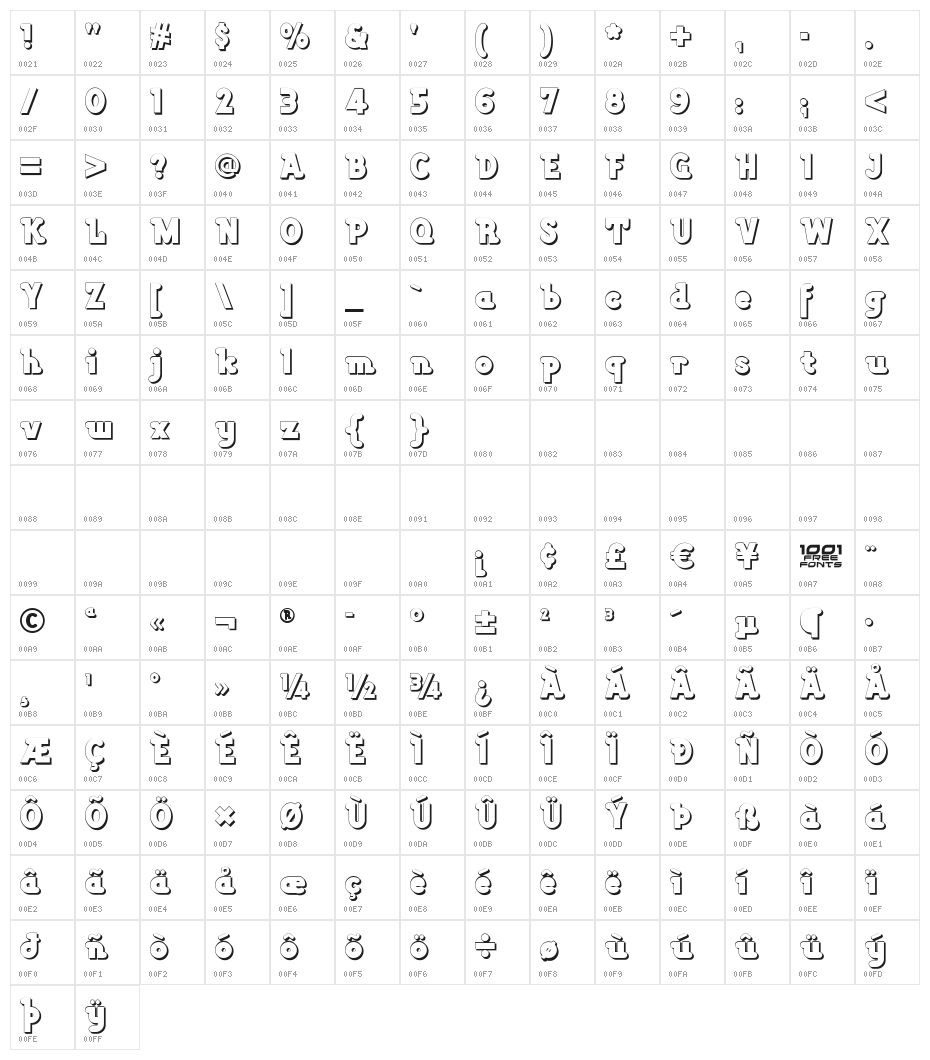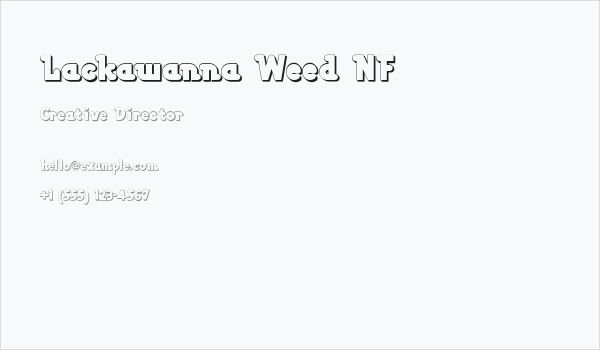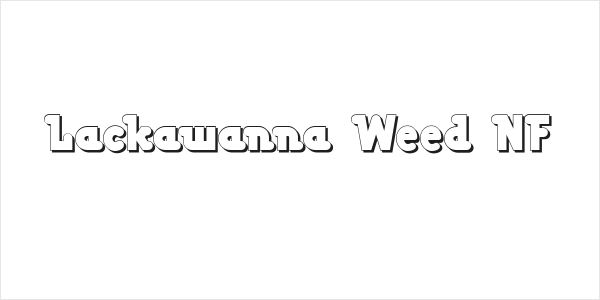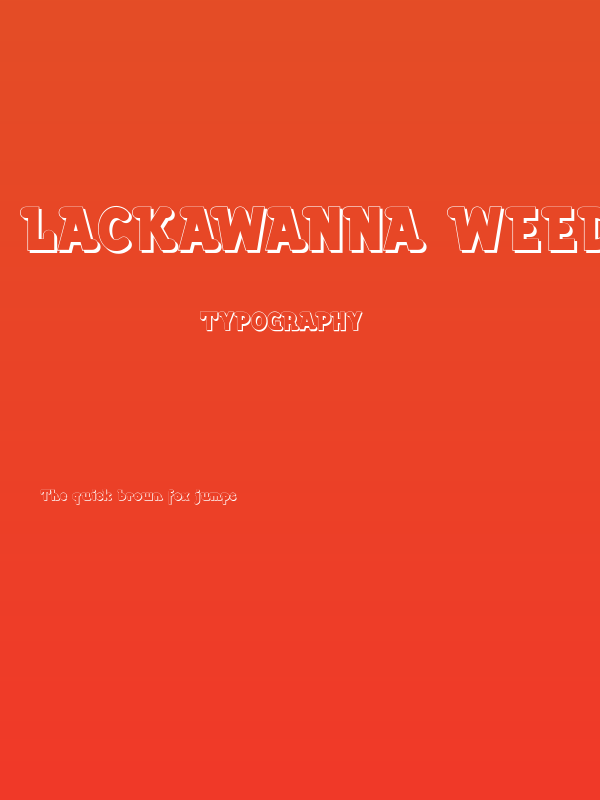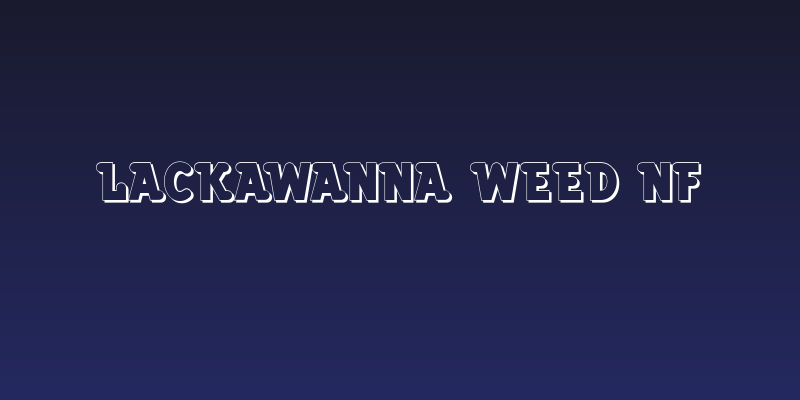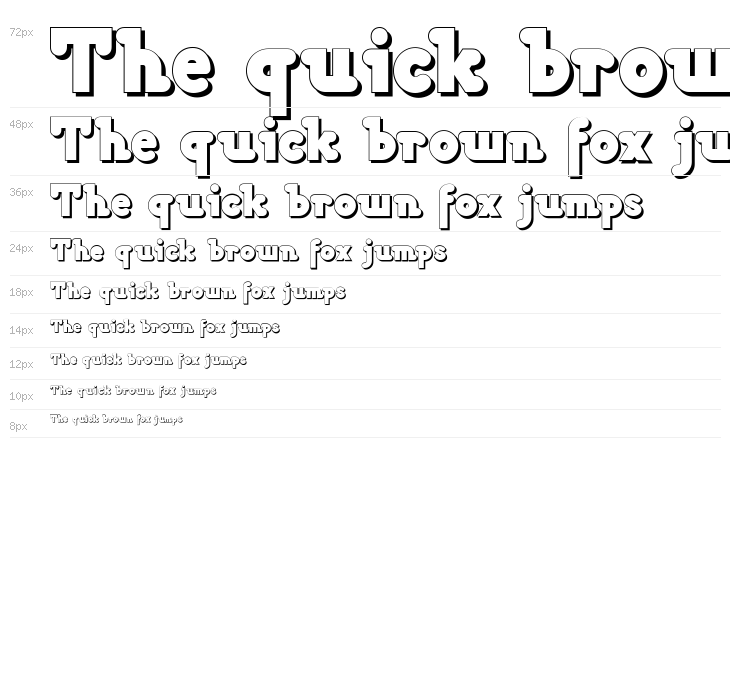
Lackawanna Weed NF Font
Lackawanna Weed NF Description
This font features a bold, playful style with a strong, three-dimensional appearance. The characters are outlined, giving them a shadow effect that adds depth and visual interest. The uppercase letters are robust and commanding, while the lowercase letters maintain a consistent, rounded form. Numbers and special characters follow the same bold and outlined design, ensuring uniformity across all glyphs. This font's unique style makes it stand out, offering a mix of retro and modern vibes, perfect for eye-catching designs.
| Overall Style | Retro, Modern |
| Proposed Projects | Ideal for posters, logos, headlines, and any project requiring a bold, attention-grabbing font. |